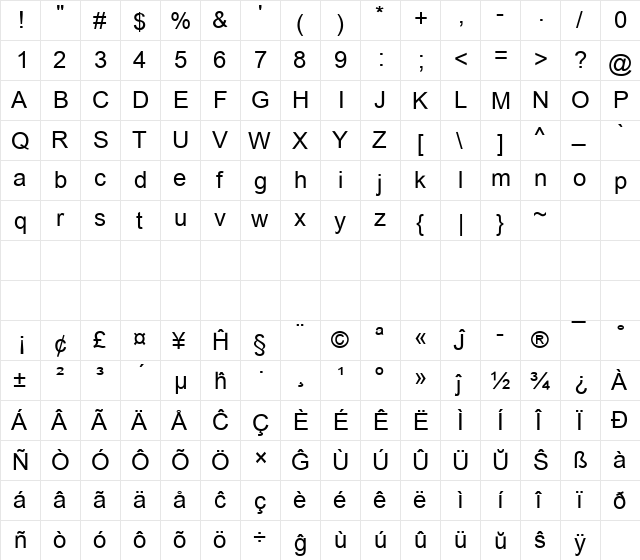
Lat3 Arial Regular
Design Context for Lat3 Arial Typeface
Lat3 Arial offers clean, dependable letterforms without strong stylistic allegiance, making it a practical choice for designers who need flexibility.